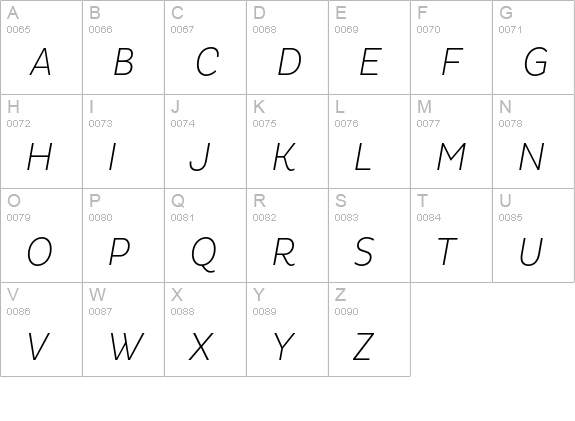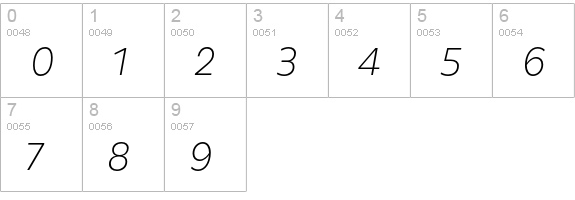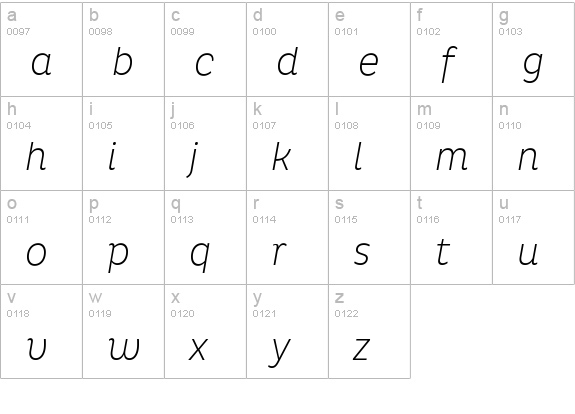
Pluto Cond ExtraLight Italic Font Details
Pluto Cond ExtraLight Italic is an airy, ultra-refined, condensed-width, italic variant in the Pluto typeface family \xE2\x80\x94 well suited to minimalist headlines and refined display use.
The Pluto Cond ExtraLight Italic font is a sleek and modern typeface that exudes elegance and sophistication. Its slender and italic design adds a touch of flair to any project, making it perfect for creating a stylish and contemporary look. This font is not only visually appealing, but it also offers excellent legibility, making it ideal for a wide range of design applications. Whether you're working on a website, a poster, or a branding project, Pluto Cond ExtraLight Italic will elevate your design to the next level. Best of all, this font is available for free download at FontsMarket.com. So you can easily access this high-quality typeface and incorporate it into your projects without any cost. Don't miss out on the opportunity to enhance your design work with the Pluto Cond ExtraLight Italic font today!